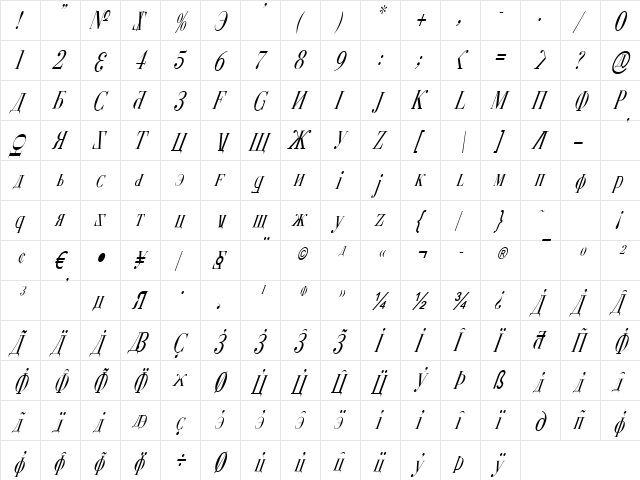
Cyberia Condensed Italic Font Preview
| Designer | Dan Zadorozny |
Design Context for Cyberia Condensed Italic Typeface
Cyberia Condensed Italic channels digital-age aesthetics through its sharp, structured letterforms — ideal for brands that want to signal innovation. Its italic angle brings a sense of urgency and motion to the letterforms. The condensed width makes it efficient for tight spaces without sacrificing legibility.